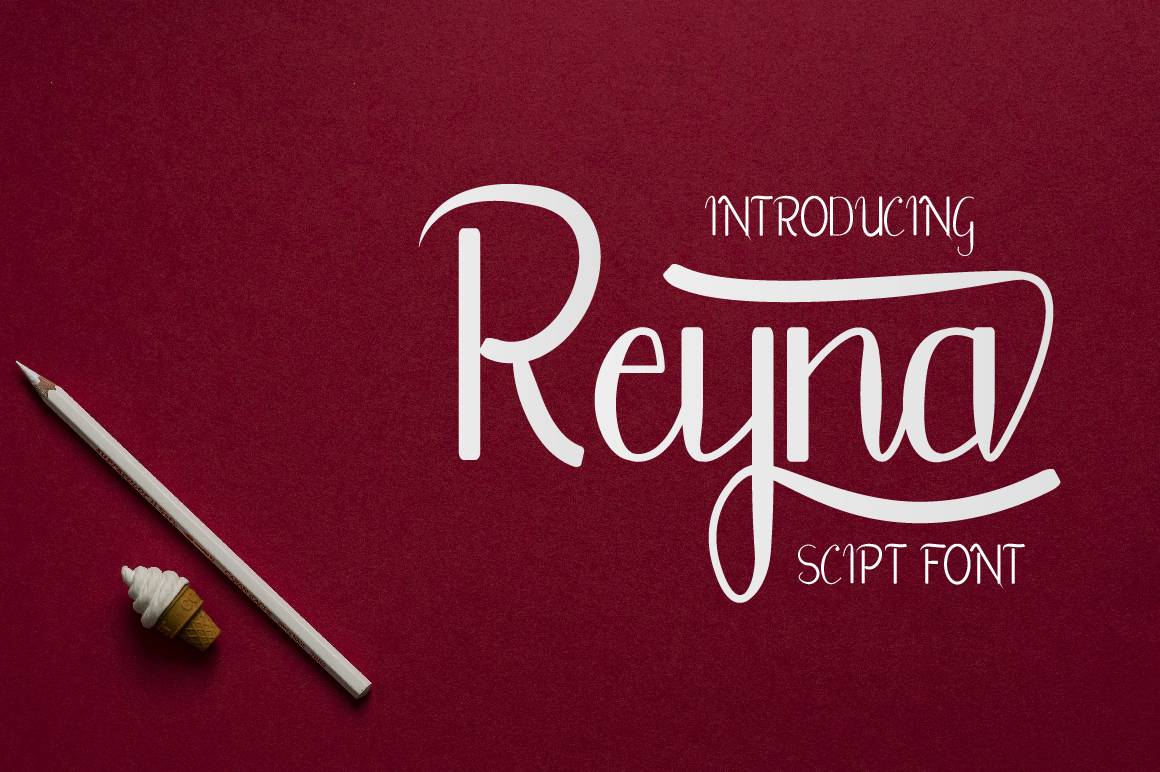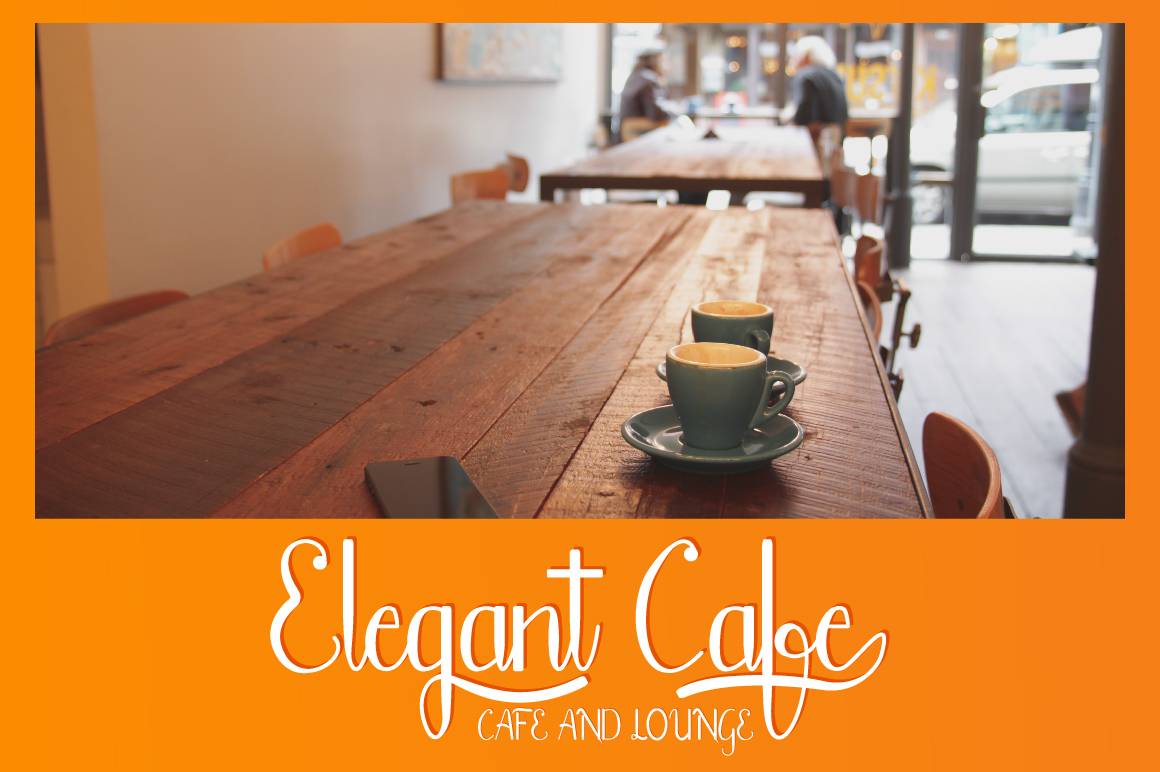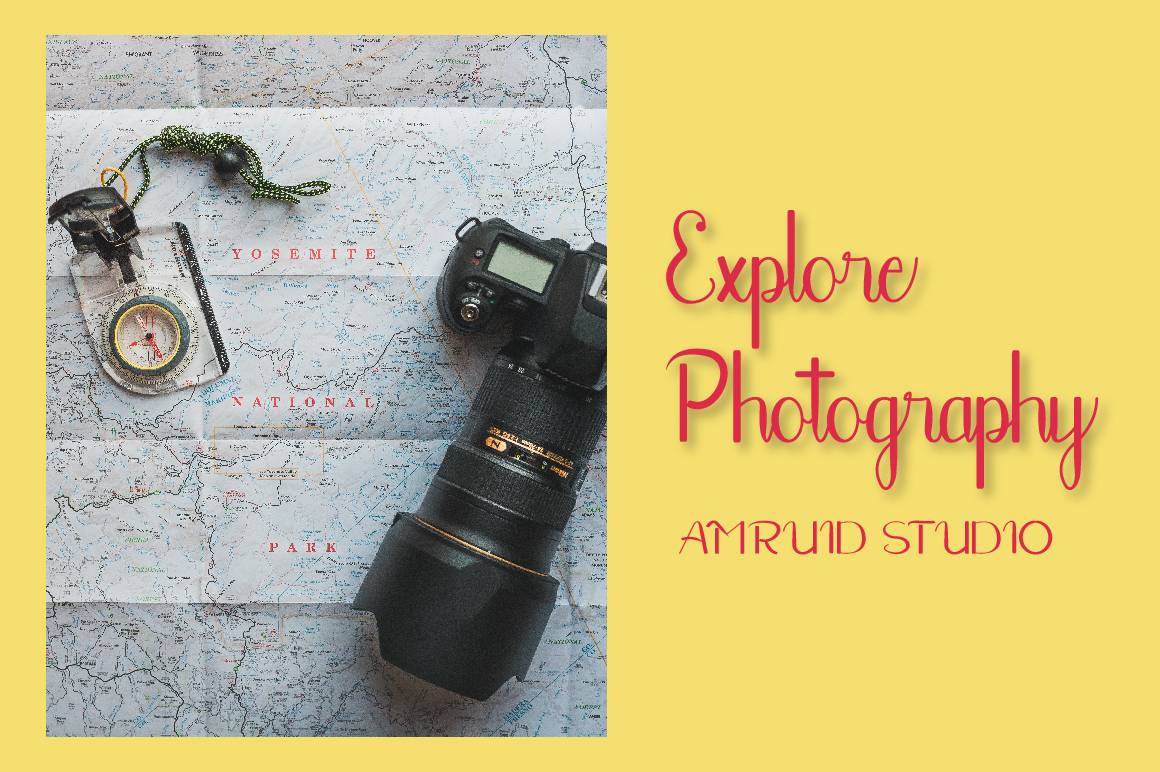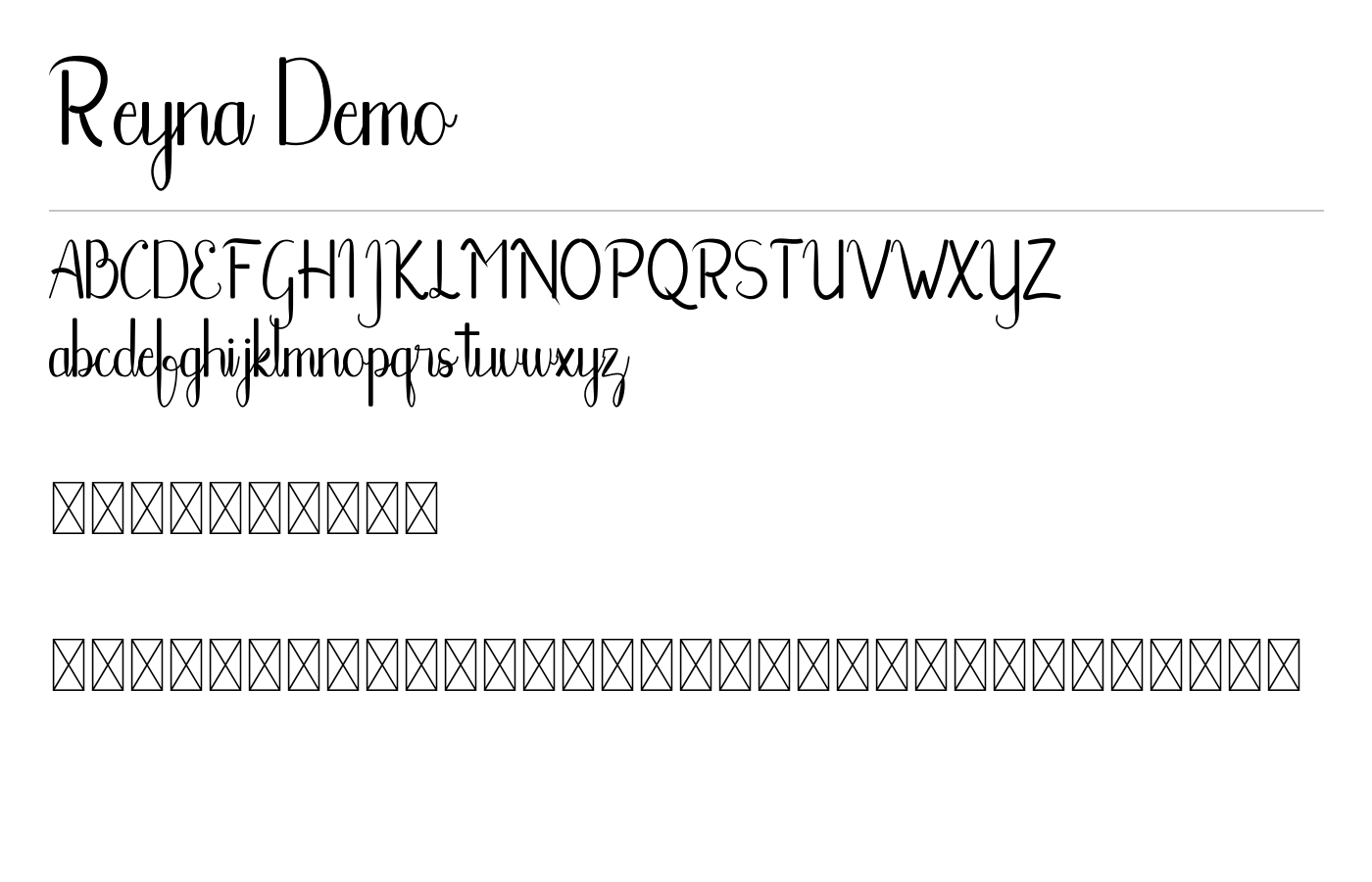
Reyna is a playful and elegant handwritten script font with tall, slender letterforms and whimsical flourishes. Its thin strokes and unique character shapes give it a charming, artistic feel, making it perfect for creative branding, invitations, and stylish headlines where a personal touch and lighthearted sophistication are desired.
Reyna Font
About Reyna Font